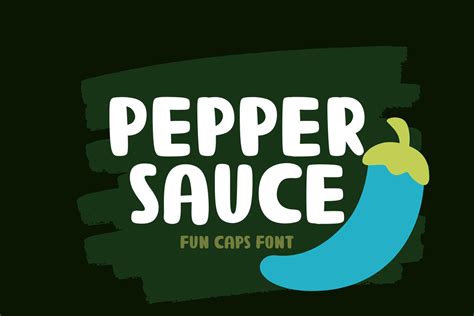
Pepper Sauce Font. Great for quotes, social media, merchandises, comics,. Web click here and download the pepper sauce font · window, mac, linux · last updated 2023 · commercial licence included
This enchanting font will turn any creative idea into a true. More information about this font. Web click here and download the pepper sauce font · window, mac, linux · last updated 2023 · commercial licence included Web pepper sauce font is a whimsical display font. Great for quotes, social media, merchandises, comics,.
Web pepper sauce font is a whimsical display font. Web click here and download the pepper sauce font · window, mac, linux · last updated 2023 · commercial licence included Web pepper sauce font is a whimsical display font. This enchanting font will turn any creative idea into a true. More information about this font. Great for quotes, social media, merchandises, comics,.